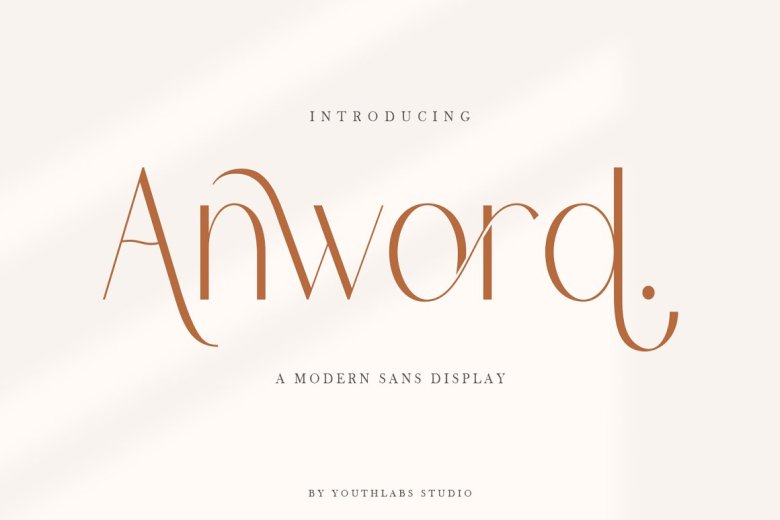
Anword Font
Anword font is a allows any designer or product owner to transform their design into a modern and stylish elegance. The font is characterized by the unique alternative and ligature design that addresses all product and design-related issues. It is very suitable for making a product logo and displayed in magazines, books, lookbooks, catalogs and other types.
Anword Sans Serif Font